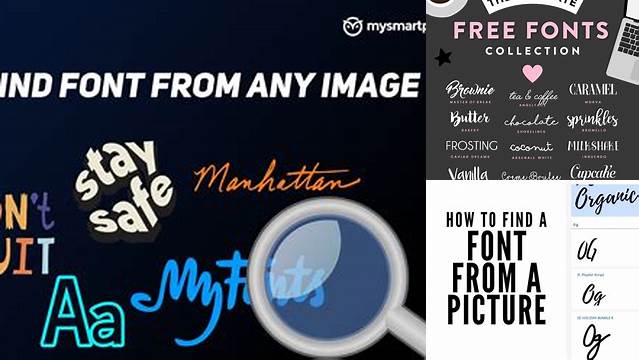
Find Font From Image Free: The Ultimate Guide
Finding the perfect font can be a real challenge, especially when you only have an image to go by. Ever seen a cool font in a logo or a poster and wondered what it is? Well, font finder free by image tools are here to save the day! They let you upload an image, and voilà, they identify the font for you. In this guide, we'll explore the best free font finders, how to use them, and some tips for getting the most accurate results. Let's dive in, guys!
H2: What is a Font Finder and Why Use One?
So, what exactly is a font finder? A font finder is a tool that helps you identify a font from an image. This is super useful when you need to match a font for a project, recreate a design, or simply satisfy your curiosity. Think about it: you're browsing the web, and you stumble upon a fantastic design with a font that screams “perfect!” But how do you figure out what it is? That’s where a font finder free by image comes into play. Instead of spending hours scrolling through font libraries, you can upload the image and get the font name in seconds. These tools use advanced algorithms and vast databases to analyze the shapes and characteristics of the letters in your image. This allows them to compare the letters to thousands of different fonts and find the closest match. It's like having a font detective at your fingertips, ready to solve the mystery of the unknown typeface. Using a font finder free by image not only saves you time but also broadens your font horizons. You might discover fonts you never knew existed, expanding your design palette and giving you more creative options. Plus, it’s a fantastic way to learn more about typography and the nuances of different font styles. Whether you're a seasoned designer or just starting out, a font finder is an indispensable tool in your creative toolkit. It’s the secret weapon for those moments when inspiration strikes and you need to capture the essence of a design quickly and accurately. So, next time you’re staring at an image wondering about the font, remember the power of the font finder free by image – your ticket to typeface identification heaven!
H2: Top Free Font Finders Available Online
Alright, let's get to the good stuff! There are a bunch of free font finder free by image tools out there, but which ones are the best? We've rounded up some top contenders that you should definitely check out. First up is WhatTheFont by MyFonts. This tool is super popular and known for its accuracy. It has a massive database of fonts, so it’s likely to find what you’re looking for. Next, we have Fontspring's Matcherator. This one is great because it lets you crop the image to focus on specific letters, which can help with tricky fonts. Then there’s Identifont, which uses a questionnaire-style approach to help narrow down the font based on its characteristics. It's a bit different, but surprisingly effective. Another solid option is Font Squirrel's Font Identifier. Font Squirrel is known for its curated collection of free fonts, and their identifier tool is equally impressive. It’s straightforward to use and delivers reliable results. Finally, let's not forget about Adobe Font Finder. If you're already in the Adobe ecosystem, this tool is a no-brainer. It’s integrated directly into Creative Cloud, making it super convenient. Each of these font finder free by image tools has its own strengths, so it’s worth trying a few to see which one works best for you. They all offer a free service, so you’ve got nothing to lose! Plus, using multiple tools can sometimes give you a more comprehensive result, especially when dealing with unusual or obscure fonts. So, go ahead and experiment – your perfect font match is just a few clicks away. These font finder free by image tools are the secret sauce to unlocking a world of typographic possibilities, and they’re all waiting for you to explore!
H2: How to Use a Font Finder: A Step-by-Step Guide
Okay, so you've got your font finder free by image tool picked out. Now what? Don't worry, it’s super easy to use these things. Let's break it down step by step so you can become a font-finding pro in no time! First, you'll need to find the image that contains the font you want to identify. Make sure the image is clear and the text is legible. The better the image quality, the more accurate the results will be. Next, head over to the website of your chosen font finder tool. Most of them have a pretty straightforward interface. Look for an upload button or a drag-and-drop area. Click that button and select the image from your computer, or simply drag the image onto the designated area. Once the image is uploaded, the font finder will usually ask you to outline the text you want to identify. This helps the tool focus on the specific characters and ignore any background noise. Carefully draw a box around the text, making sure to include all the letters. Some tools might even let you select individual characters, which can be super helpful for complex fonts. After you've outlined the text, the font finder will start its magic. It will analyze the letters and compare them to its database of fonts. This might take a few seconds, so be patient. Once the analysis is complete, the tool will present you with a list of possible matches. It might show you the exact font name, or it might suggest similar fonts if an exact match isn't found. Take a look at the suggestions and see if any of them look right. If you're not sure, you can usually preview the font with your own text to get a better idea. And that's it! You've successfully used a font finder free by image tool. See? It's not rocket science. With a little practice, you'll be identifying fonts like a pro. So go ahead, give it a try – your next design project will thank you for it!
H2: Tips for Getting Accurate Results with Font Finders
Want to become a font finder free by image ninja? Here are some pro tips to help you get the most accurate results every time. First off, image quality is key. The clearer the image, the easier it is for the tool to analyze the font. Try to use images with high resolution and minimal distortion. If the text is blurry or pixelated, the font finder might struggle to identify it correctly. Another trick is to crop the image to focus specifically on the text you want to identify. This eliminates any unnecessary background elements that could confuse the tool. Most font finders allow you to crop the image after uploading, so take advantage of this feature. When outlining the text, be precise. Make sure the box you draw around the text fits snugly, without cutting off any parts of the letters. If the outline is too loose or too tight, the tool might not be able to analyze the characters properly. If you're dealing with a complex font that has multiple styles (like bold, italic, or condensed), try to focus on the most distinctive style. This can help the font finder narrow down the possibilities more quickly. Sometimes, a font finder might not find an exact match. In that case, it will usually suggest similar fonts. Don't dismiss these suggestions right away – they might be a close enough alternative, especially if you're not too picky. If you're still struggling to identify the font, try using multiple font finder free by image tools. Each tool has its own database and algorithms, so you might get different results from different tools. This can give you a more comprehensive picture and increase your chances of finding the right font. And finally, remember that font finding isn't an exact science. Sometimes, a font might be custom-made or simply not available in any online database. In those cases, you might need to explore alternative fonts that capture the same vibe. But with these tips, you'll be well-equipped to tackle even the trickiest font identification challenges. Happy font hunting!
H2: Common Mistakes to Avoid When Identifying Fonts
Even with the best font finder free by image tools, it's easy to make mistakes if you're not careful. Let's go over some common pitfalls to avoid so you can get the most accurate results. One of the biggest mistakes is using low-quality images. If the image is blurry, pixelated, or distorted, the font finder will have a hard time analyzing the letters. Always try to use the highest-resolution image you can find. If you only have a low-quality image, try to enhance it using image editing software before uploading it to the font finder. Another mistake is not cropping the image properly. If the image contains a lot of extra elements, the font finder might get confused and suggest the wrong fonts. Crop the image to focus specifically on the text you want to identify. This will give the tool a clearer picture and improve its accuracy. Not outlining the text correctly is another common issue. When you outline the text, make sure the box fits snugly around the letters, without cutting off any parts or including too much extra space. A sloppy outline can throw off the font finder's analysis. Sometimes, people assume that a font finder will always find an exact match. But the truth is, font databases aren't exhaustive, and some fonts might not be included. If the font finder doesn't find an exact match, it will usually suggest similar fonts. Don't dismiss these suggestions – they might be a close enough alternative. Relying on just one font finder is another mistake to avoid. Each tool has its own database and algorithms, so you might get different results from different tools. Try using multiple font finders to get a more comprehensive picture. Finally, don't forget to consider the context of the font. The font's appearance can be affected by factors like size, color, and spacing. Keep these factors in mind when evaluating the font finder's suggestions. By avoiding these common mistakes, you'll be well on your way to becoming a font finder free by image master. So go out there and identify those fonts with confidence!
H2: Exploring Different Types of Fonts and Their Uses
Finding a font with a font finder free by image is just the first step. It's also super important to understand the different types of fonts and how they're typically used. This knowledge will help you make better design decisions and choose the right font for your project. Let's start with the basics: fonts are broadly divided into two main categories: serif and sans-serif. Serif fonts have small decorative strokes, called serifs, at the ends of the letters. These fonts are often considered classic and elegant, and they're commonly used for body text in books and newspapers. Examples of serif fonts include Times New Roman, Garamond, and Georgia. Sans-serif fonts, on the other hand, don't have those little strokes. They have a cleaner, more modern look, and they're often used for headlines, logos, and website text. Popular sans-serif fonts include Arial, Helvetica, and Open Sans. Within these two categories, there are tons of variations. For example, there are slab serif fonts, which have thick, blocky serifs, and script fonts, which look like handwriting. Display fonts are designed to be used in large sizes, like for posters or banners, and they often have unique and eye-catching designs. The best font for a particular project depends on the overall tone and style you're trying to achieve. If you're designing a formal document, a serif font might be the best choice. If you're creating a modern website, a sans-serif font might be a better fit. Script fonts can add a touch of elegance or whimsy, but they should be used sparingly, as they can be difficult to read in large blocks of text. Display fonts are great for grabbing attention, but they should also be used carefully, as they can be overwhelming if overused. So, next time you're using a font finder free by image to identify a font, take a moment to think about the type of font it is and how it's being used. This will give you a better understanding of its characteristics and help you choose the right font for your own projects.
H2: Font Pairing: How to Combine Fonts for Great Design
Okay, you've nailed identifying fonts with your font finder free by image skills. But what about using them together? Font pairing is a crucial aspect of design, and it can make or break the overall look and feel of your project. The goal of font pairing is to create visual harmony and readability by combining different fonts that complement each other. Think of it like a well-composed melody – different notes working together to create a beautiful sound. A common approach to font pairing is to combine a serif font with a sans-serif font. This creates a nice contrast that's pleasing to the eye. For example, you might use a serif font for your body text and a sans-serif font for your headlines. This makes the headlines stand out while keeping the body text easy to read. Another tip is to choose fonts from the same font family. Font families often include variations in weight and style, like bold, italic, and condensed. Using different styles from the same family can create a cohesive and professional look. You can also pair fonts based on their personality. For example, you might pair a classic serif font with a modern sans-serif font to create a timeless yet contemporary feel. Or you might pair a playful script font with a clean sans-serif font for a fun and whimsical design. It's important to avoid pairing fonts that are too similar. If the fonts are too close in style, they can clash and create a confusing visual experience. You want the fonts to complement each other, not compete for attention. There are tons of resources online that can help you with font pairing. Many websites offer font pairing suggestions and examples. You can also find inspiration in existing designs that you admire. Pay attention to how the designers have used different fonts together and try to understand why the pairings work. With a little practice, you'll develop an eye for font pairing and be able to create stunning typographic designs. So, keep exploring, keep experimenting, and let your font finder free by image adventures lead you to amazing font combinations!
H2: Creating Your Own Font Library for Future Projects
Now that you're a font finder free by image whiz and a font pairing pro, let's talk about building your own font library. Having a well-curated font collection is like having a secret weapon in your design arsenal. It gives you a wide range of options to choose from and helps you create unique and memorable designs. The first step in building your font library is to start collecting fonts that you love. Whenever you come across a font that catches your eye, whether it's on a website, in a magazine, or in a logo, use your font finder free by image skills to identify it and add it to your collection. There are many places to find fonts online, both free and paid. Websites like Google Fonts, Font Squirrel, and DaFont offer a wide selection of free fonts. For premium fonts, you can check out marketplaces like MyFonts, Adobe Fonts, and Creative Market. When choosing fonts for your library, it's important to consider a variety of styles and weights. You'll want to have a good mix of serif and sans-serif fonts, as well as different weights (like bold and light) and styles (like italic and condensed). This will give you the flexibility to use the right font for any project. It's also a good idea to organize your font library in a way that makes sense to you. You might want to create folders for different font categories, like serif, sans-serif, script, and display. Or you might want to tag your fonts with keywords, like